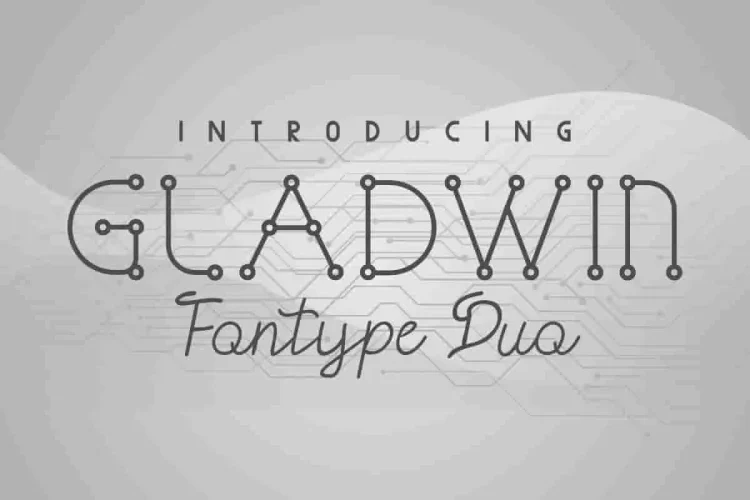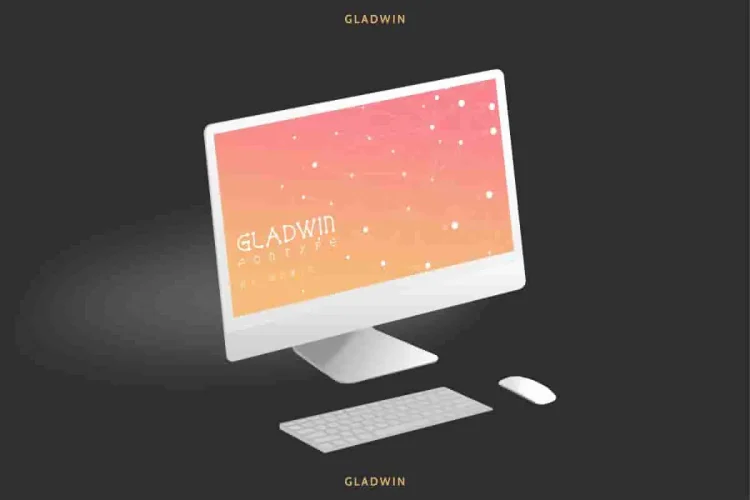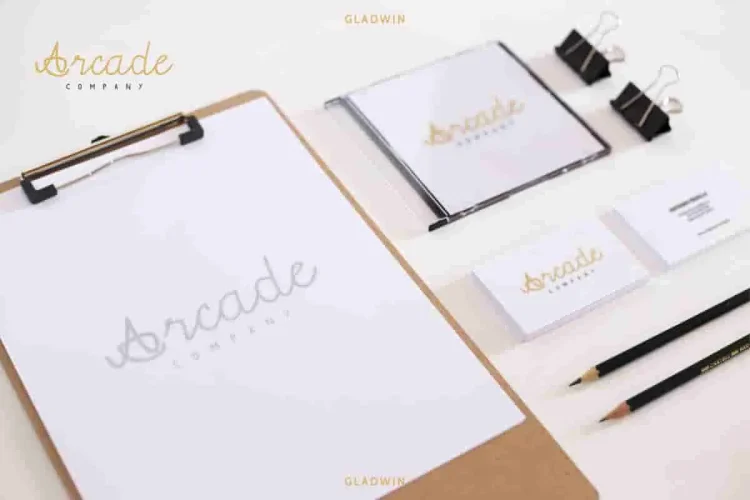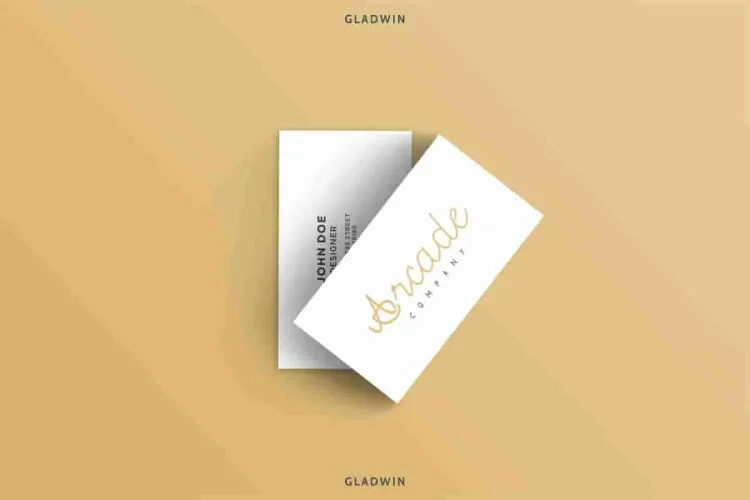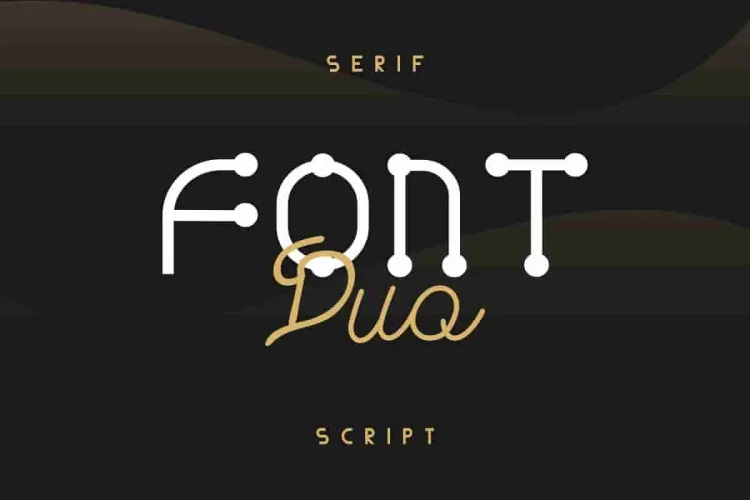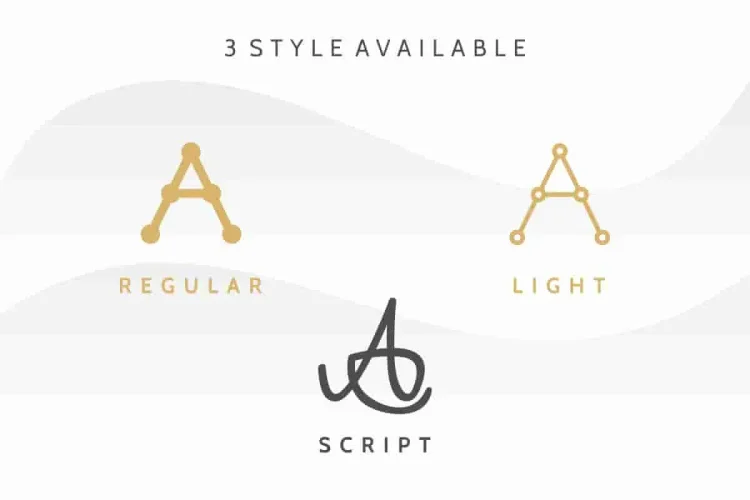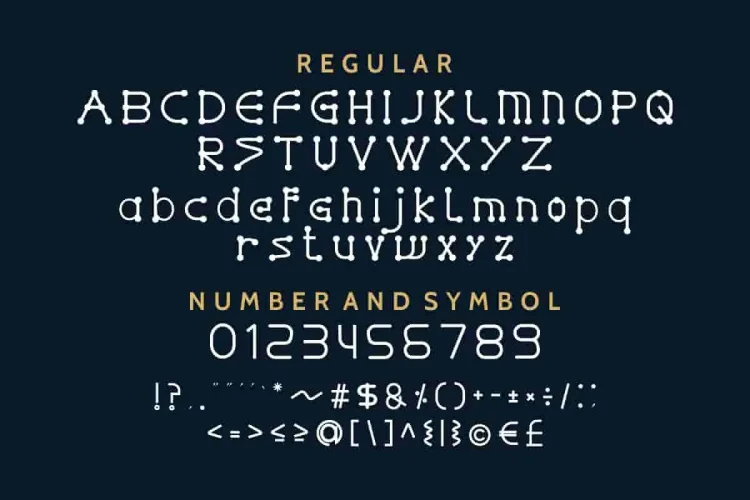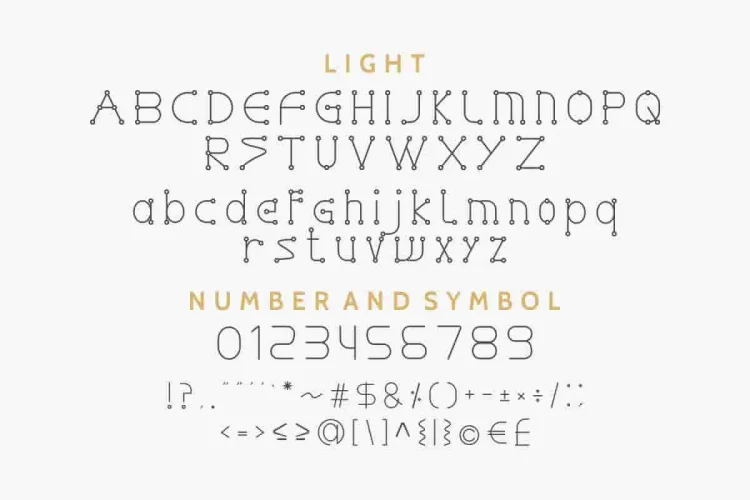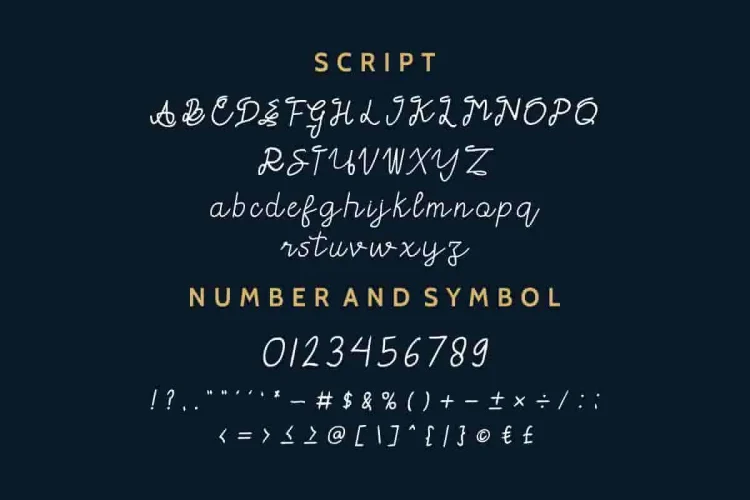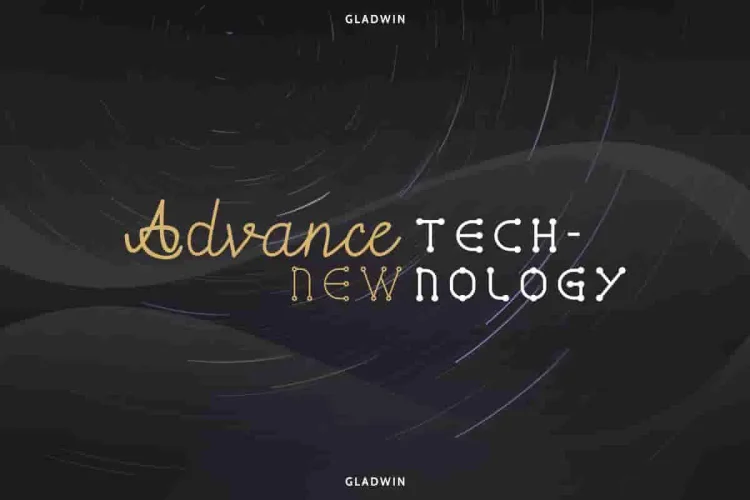
Gladwin Script Style Font Duo
Hello Everyone! We’re excited to introduce our newest font : Gladwin ! It’s a duo style that combines dots neon Script and Sans Serif. Combining beauty and precision, this Font Duo blends futuristic clarity with calligraphic charm. It features three versatile styles: Regular, Light, and Script, each crafted to bring a unique energy to your design.
✍️ Style Breakdown – Gladwin Font Duo:
• Gladwin Regular
A bold sans serif with rounded dot terminals, inspired by digital networks and connectivity. This style is perfect for tech branding, software products, and modern startups looking for a strong, futuristic presence.
• Gladwin Light
A lighter version of the Regular style, featuring thinner strokes while maintaining the same geometric and modern look. Ideal for minimalist layouts, clean UI/UX designs, and elegant presentations that require subtlety and clarity.
• Gladwin Script
A flowing calligraphy style with a “neon handwriting” vibe. It brings a personal and expressive touch, making it perfect for signage, fashion campaigns, or digital branding projects. When paired with the sans styles, it adds a soft and stylish contrast to your typography.
From modern interfaces to expressive logotypes, Gladwin is great for branding, logo, stationery, business card, signage, flyer, brochure, neon, glowing, network, connection etc. There are many industries that is suitable for this font : startup, electricity, internet agency, technology company, computer, hardware, software, apps etc
• Modern Meets Expressive – It balances clean tech vibes with emotional curves.
• Multi-Industry Friendly – Works for startups, internet agencies, software, fashion, and even wedding brands.
• Optimized for Digital Use – Perfect for web, apps, and user interface designs.